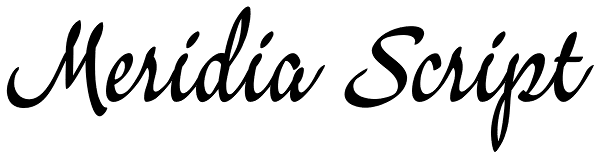
Meridia Script
Legible connected-script. Applications include captions, fashion headlines, packaging, invitations, cards, posters, ads, greeting cards, book jackets, and covers.